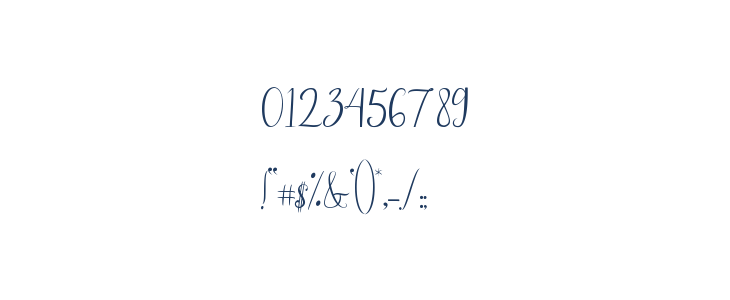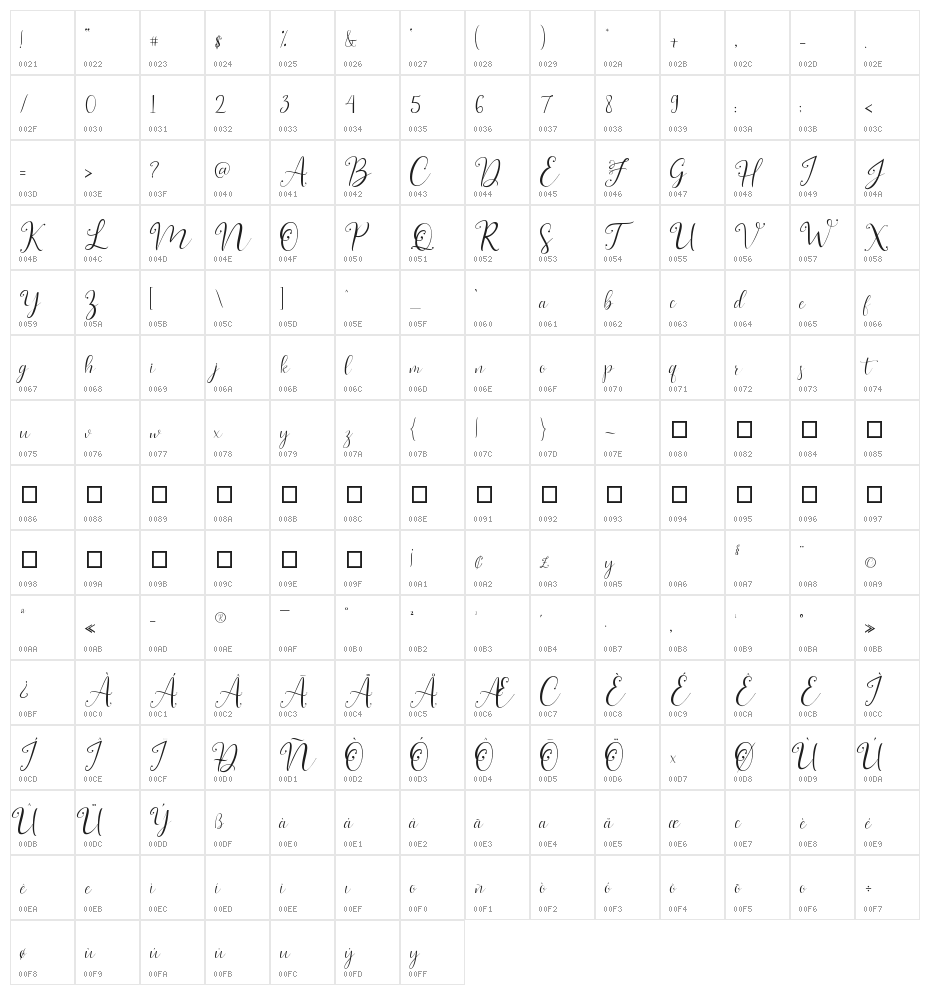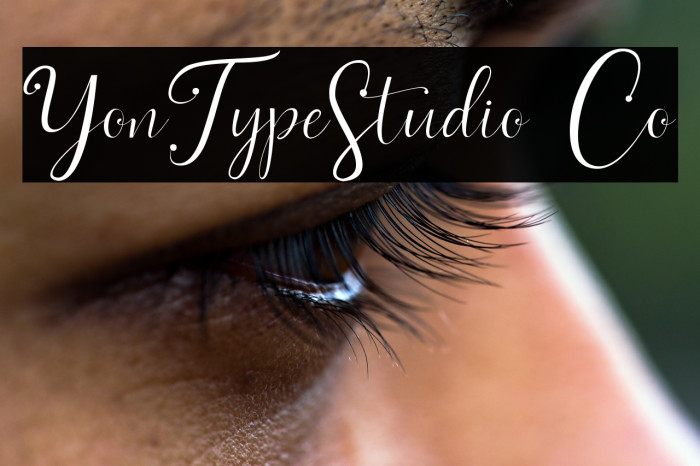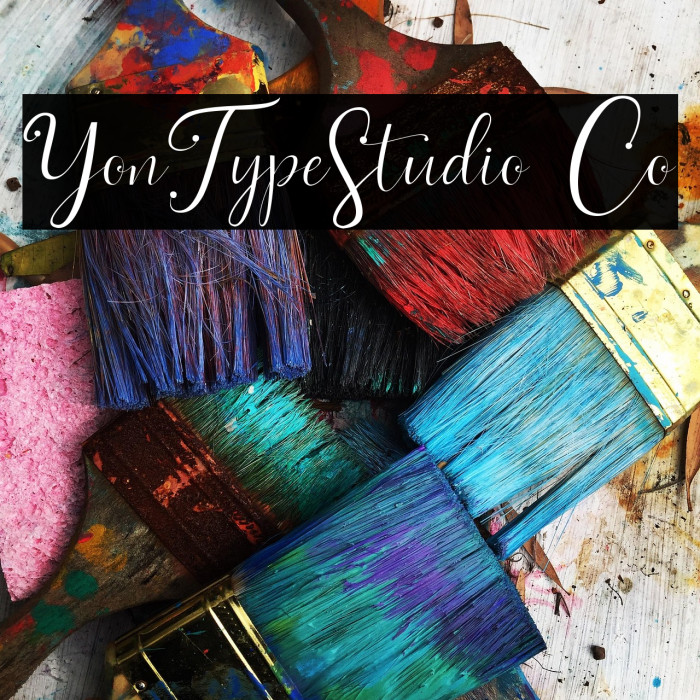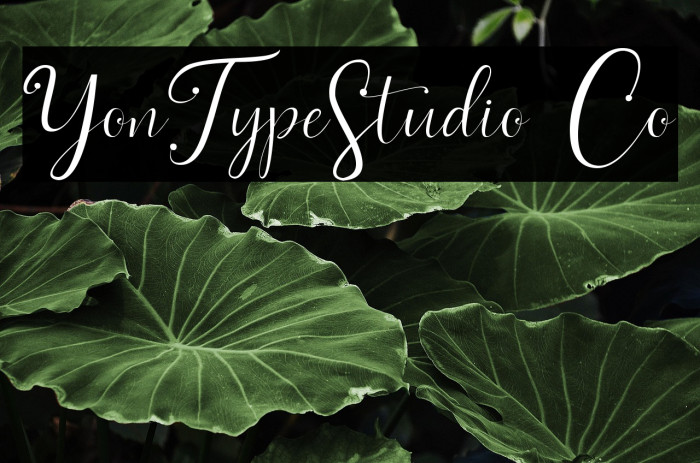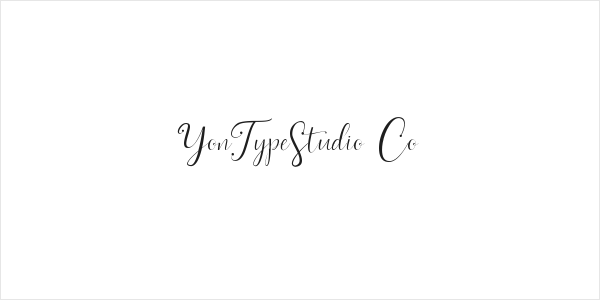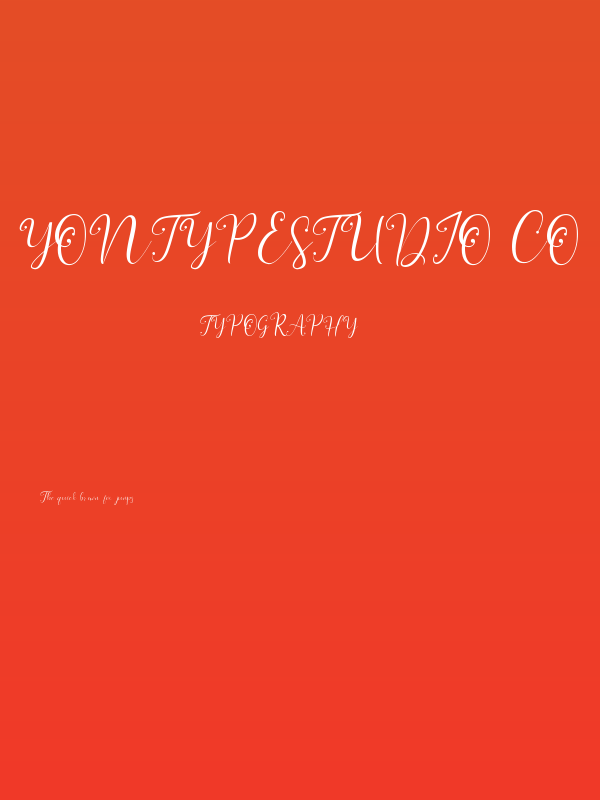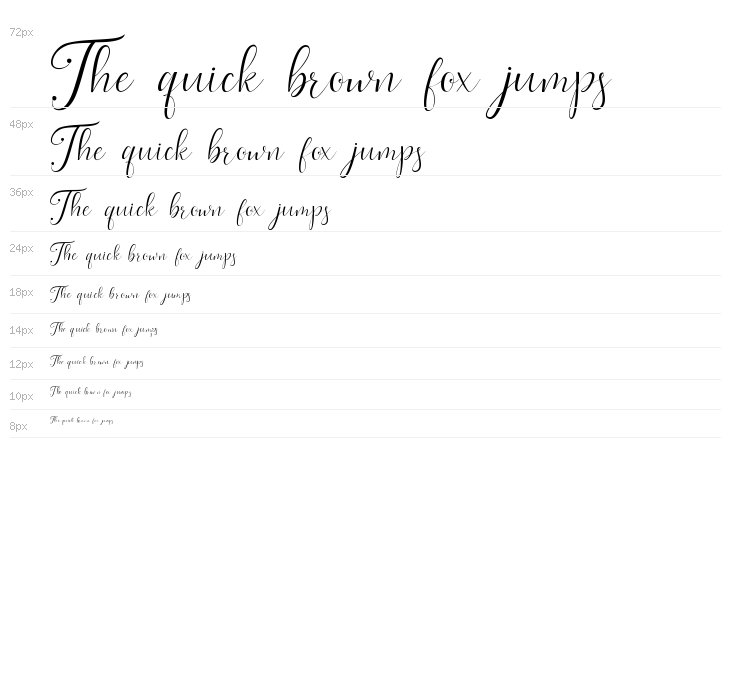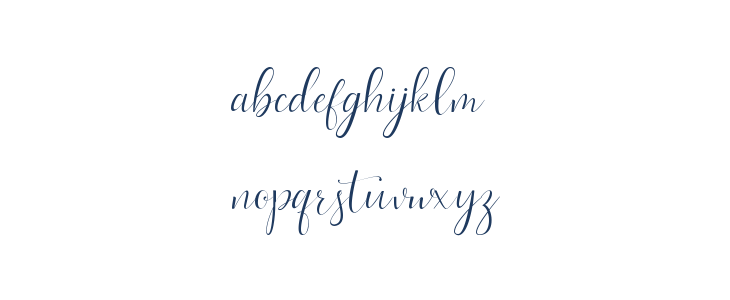
YonTypeStudio Co Font
YonTypeStudio Co Description
This elegant script font features a flowing, cursive style with intricate swashes and flourishes. Each letter is carefully crafted to create a sense of movement and grace, making it ideal for formal invitations, branding, and decorative purposes. The uppercase letters are particularly ornate, with loops and curves that add a touch of sophistication. The lowercase letters maintain a consistent style, ensuring readability while still offering a decorative flair. Numbers and special characters are designed to complement the overall aesthetic, providing a cohesive look across all text elements.
| Proposed Projects | Ideal for wedding invitations, luxury branding, greeting cards, and decorative signage. |